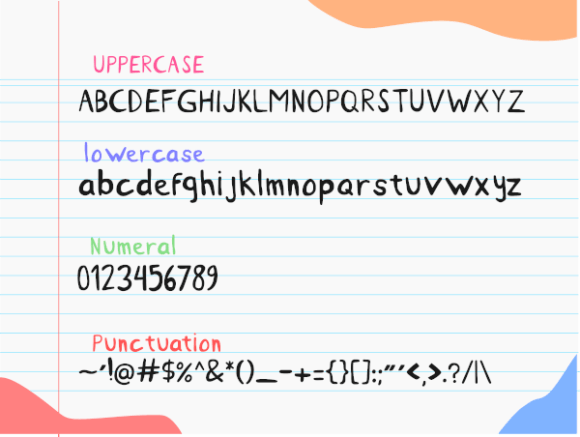
Introduction to Punya Font
Have you ever stared at a blank page or screen, eager to unleash your creativity, but struggling to find the perfect design element to bring your vision to life? This is where the magic of typography comes in – and today, we’re excited to introduce you to a game-changing font that will elevate your creative projects: the Punya Font.
This delightful, high-quality font boasts a relaxed and jolly style, making it an ideal choice for designers seeking a unique touch for their free download templates, social media graphics, or DIY projects. Whether you’re looking to create eye-catching Instagram posts or elegant calligraphy scripts, Punya Font is sure to turn your ideas into stunning works of art.
With its transparent background and versatile design, Punya Font is an invaluable resource for designers, bloggers, and crafty enthusiasts alike. In this article, we’ll delve into the world of this charming font, exploring its features, uses, and benefits – so get ready to unlock your creativity and take your design projects to the next level!
- Designed with a modern and minimalist aesthetic, ideal for graphic design and digital art
Honest Review: Punya Font
I recently stumbled upon Punya Font, a free design resource that caught my attention. As a designer, I’m always on the lookout for high-quality fonts to elevate my creative projects. Punya Font does not disappoint.
- What works well: ✨ The font is well-designed, with a unique and modern aesthetic that makes it perfect for a variety of creative projects. The transparent background is also a nice touch, allowing for seamless integration into designs.
- What works well: ✨ The font is highly customizable, making it a great resource for designers who want to add a personal touch to their work.
However, I do have a few minor complaints. ⚠️ The font could benefit from a more comprehensive character set, as some characters may not be available in certain languages. Additionally, the font may not be suitable for large-scale printing, as it may lose some of its clarity.
Overall, I’m impressed with Punya Font. It’s a great resource for designers who want to add a touch of elegance and sophistication to their work. With its high-quality design and transparent background, it’s a must-have for any design project.
Getting the Most Out of Punya Font
Here are some tips for getting the most out of Punya Font:
1. Use the font in combination with a transparent background to create a clean and modern design.
2. Experiment with different font sizes and colors to add visual interest to your design.
3. Use the font in conjunction with other design elements to create a cohesive and high-quality design for your creative project.
Punya Font is commonly used for:
1. Social media graphics and advertisements.
2. Branding and marketing materials.
3. Web design and development projects.